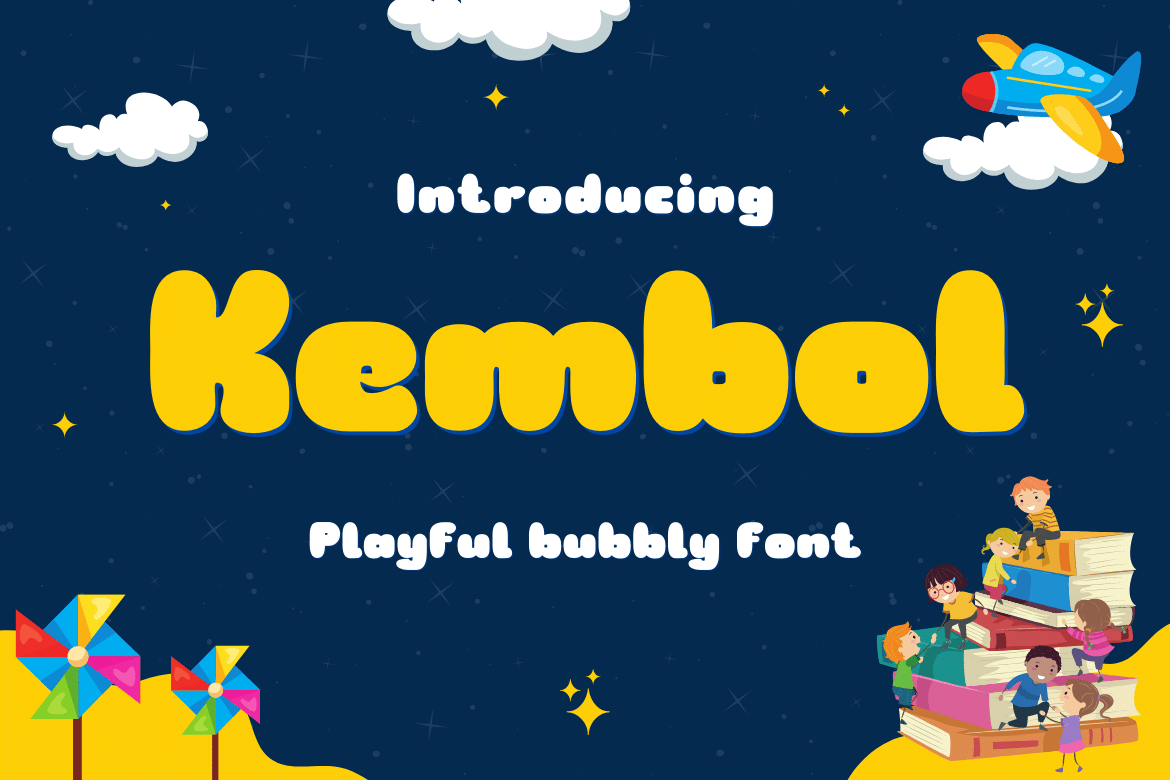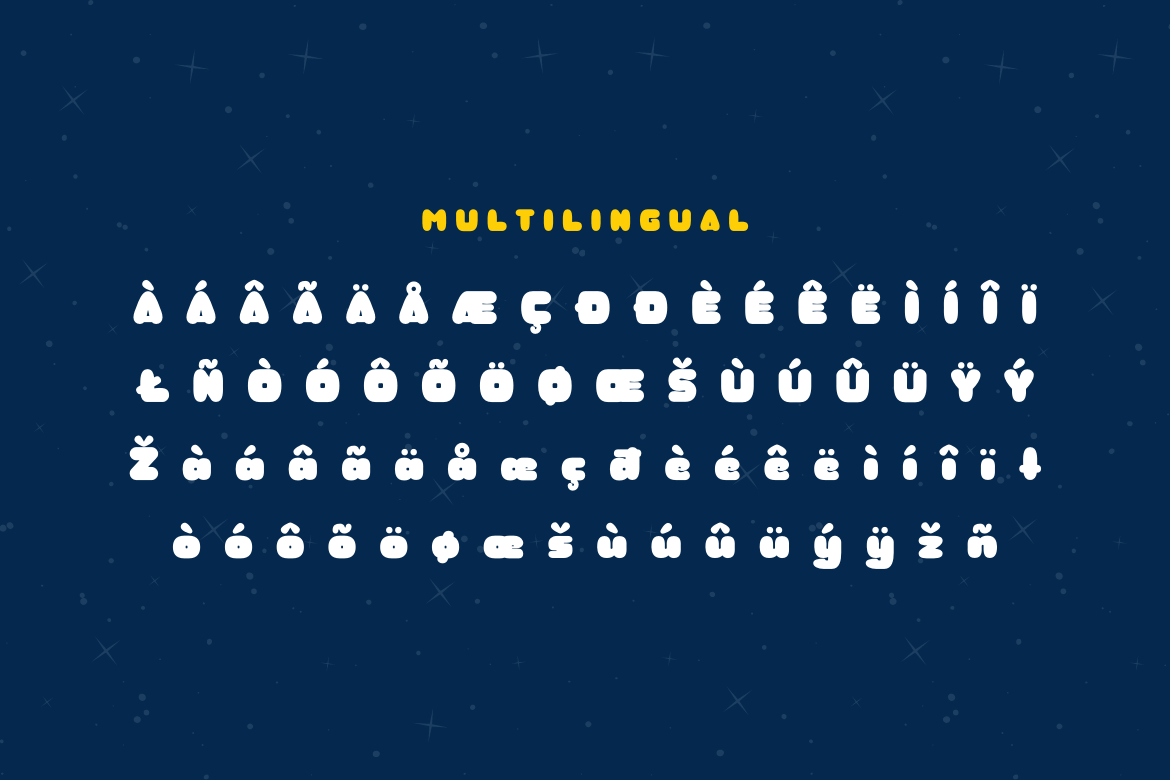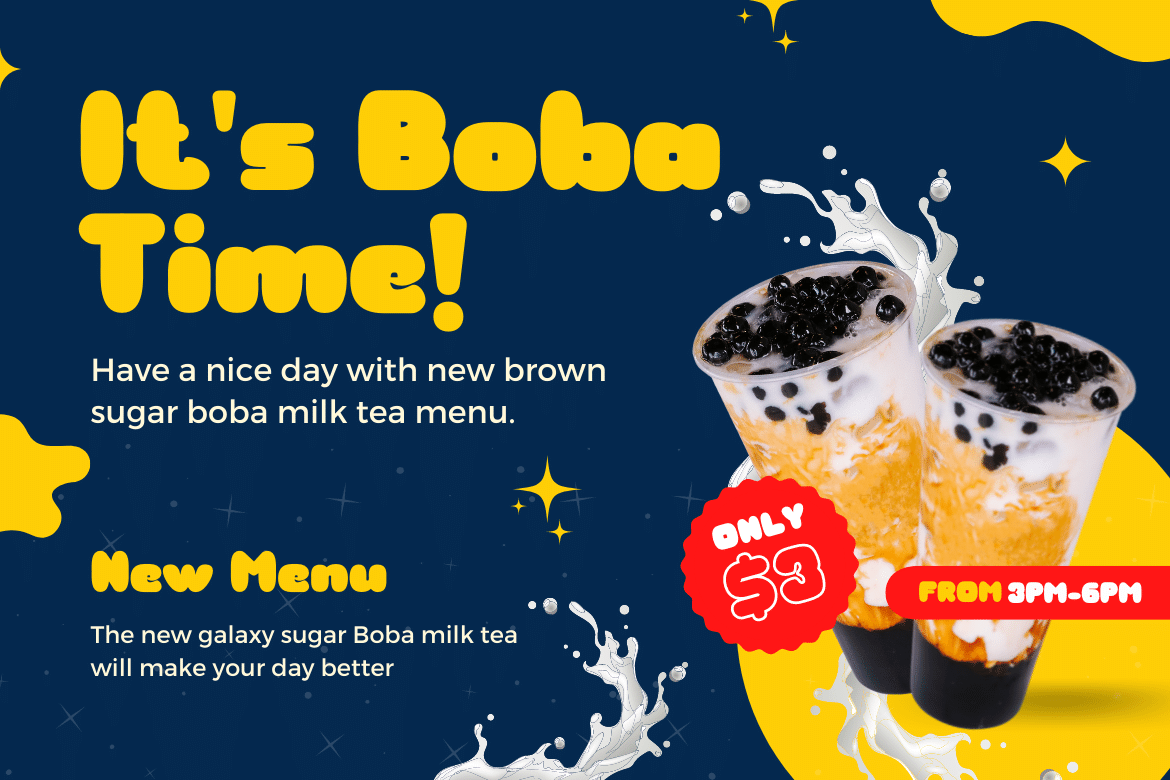
Kembol
Introduce the Kembol font, this font is perfect for you to use in a variety of visual projects, use a unique combination of type designs to create a beautiful and captivating visual impression. This is a quirky and cute font that includes lots of fun and creative touches. The result will be a great reminder that can be used in any design project you want.
• Fonts include multilingual support for; Afrikaans, Albanian, Croatian, Czech, Danish, Dutch, English, Estonian, Finnish, French, German, Hungarian, Italian, Norwegian, Polish, Portuguese, Slovak, Slovenian, Spanish, Swedish